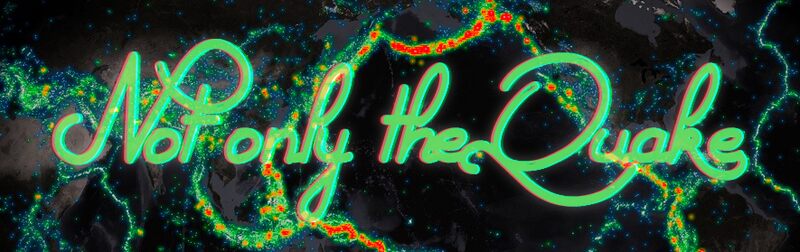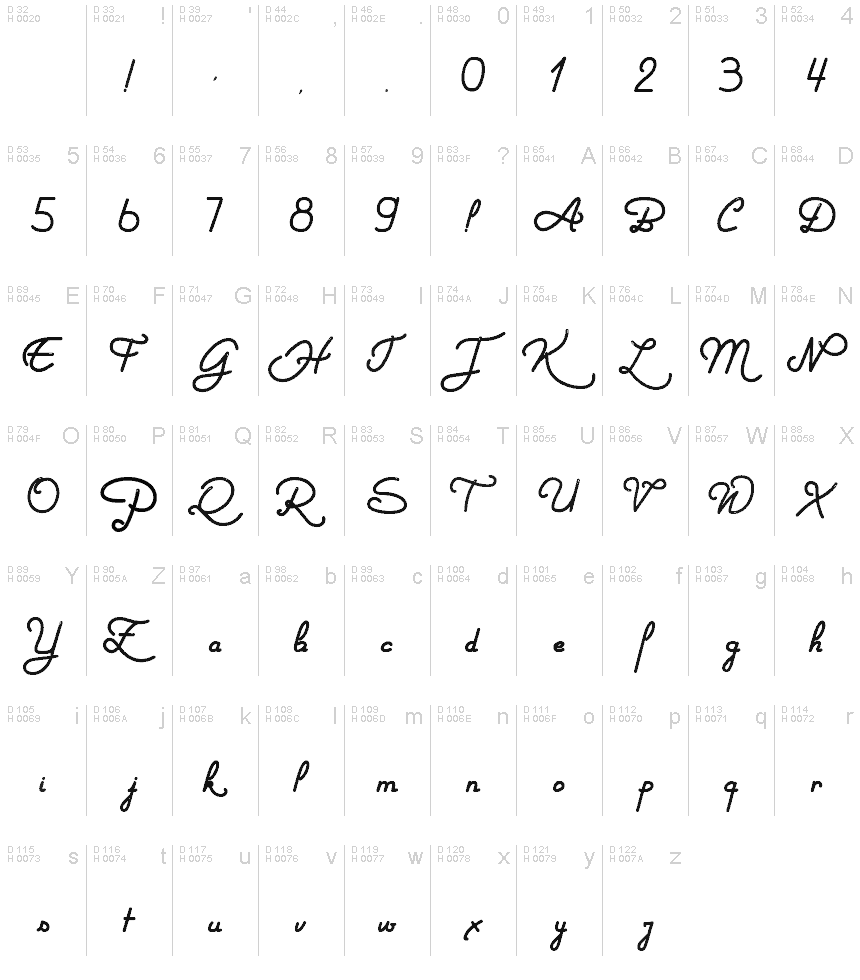
"Not only the Quake" is a captivating handwritten font designed by M.K.V. With its light, flowing strokes and organic curves, this font exudes a sense of effortless elegance and charm. The distinctive letterforms convey a sense of movement and fluidity, making it an ideal choice for projects that require a touch of casual sophistication, such as branding, packaging, or editorial design.
Its versatility extends beyond these applications, as the font's versatile nature allows it to blend seamlessly into a wide range of creative endeavors, from invitations and event materials to social media posts and product labeling. The unique character of "Not only the Quake" ensures that any design it graces will stand out with a touch of artistry and personality.